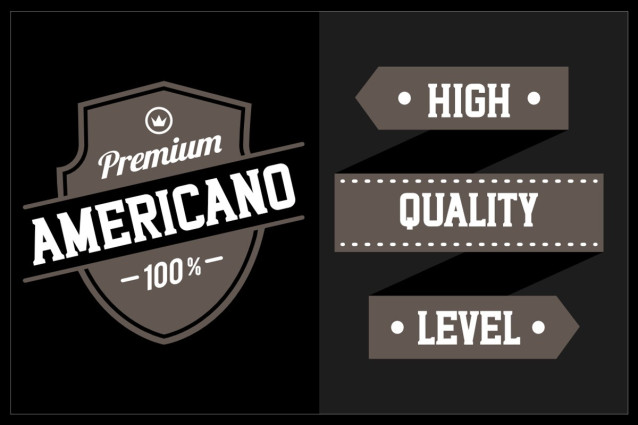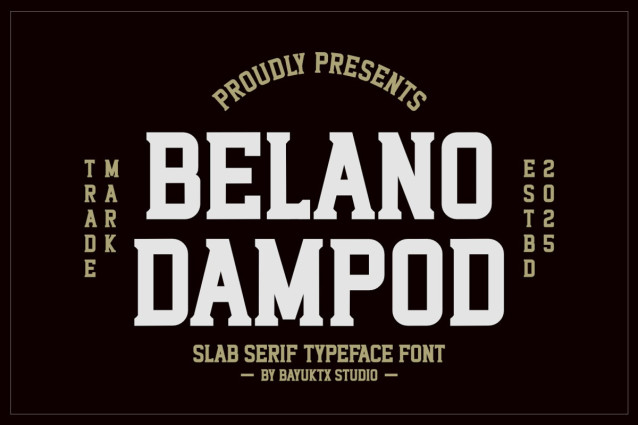
Belano Dampod Font
Belano Dampod Font is a bold and versatile slab serif typeface that blends modern strength with timeless elegance. Its solid letterforms and geometric balance give it a professional yet approachable character, making it suitable for both classic and contemporary design projects.
This font is designed to deliver clarity, stability, and impact—perfect for designs that demand authority and personality. With its clean slab serifs and strong structure, Belano Dampod works seamlessly across branding, editorial layouts, packaging, posters, and digital media.